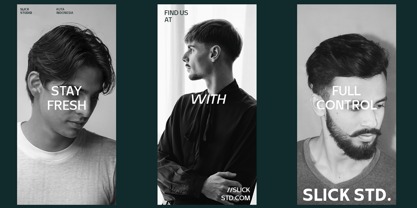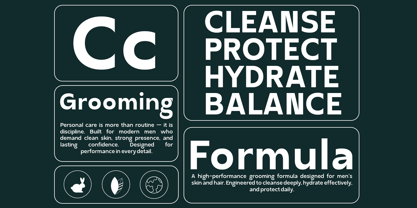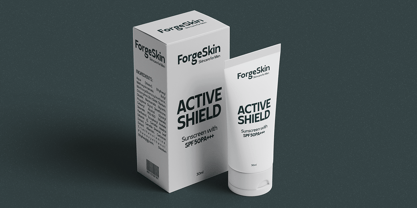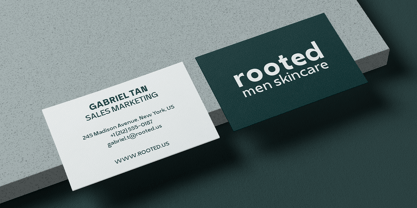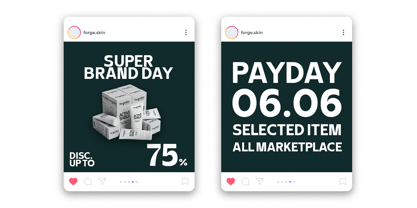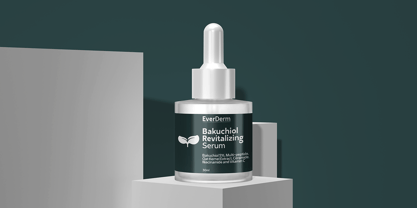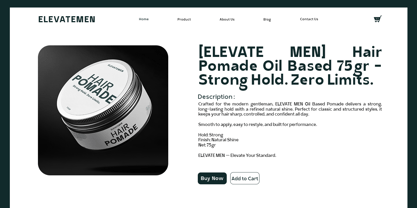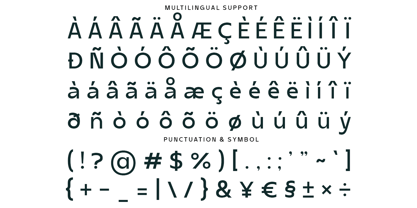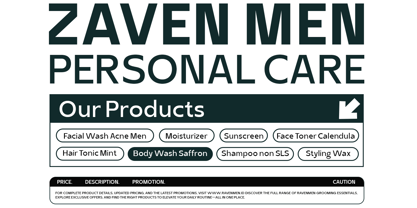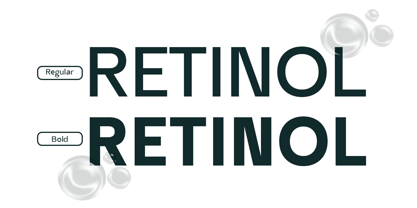
Seragil
by Say Studio
The Seragil Font Family was designed by Mussyayin and published by Say Studio. Seragil contains 4 styles and family package options. More about this family
Seragil is a modern neo grotesk typeface crafted with clarity, balance, and contemporary precision. Drawing inspiration from classic grotesk typography, this font showcases clean lines, neutral shapes, and a highly functional structure that ensures excellent readability. Its modern interpretation makes it ideal for a diverse array of professional and creative applications. Perfect for branding, corporate identity, UI/UX design, editorial layouts, websites, and modern logos, Seragil provides a versatile typographic solution that seamlessly adapts across both digital and print media. The minimalist design guarantees a clean and professional appearance while maintaining a strong visual presence. Whether utilized for tech startups, corporate branding, modern interfaces, or editorial design, Seragil offers a timeless and dependable typographic foundation. This font harmoniously blends classic grotesk influence with modern simplicity, making it the perfect choice for designers seeking clarity, functionality, and contemporary style.